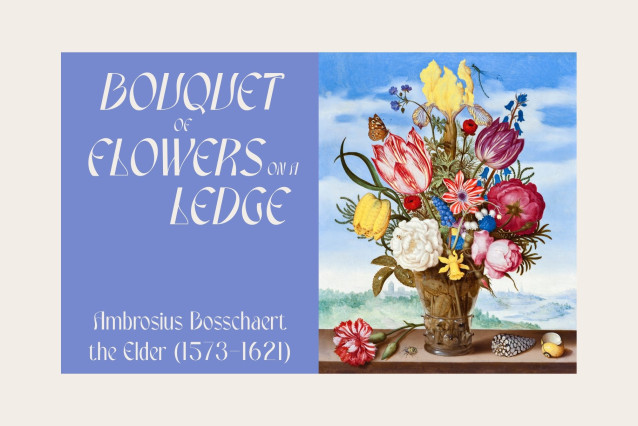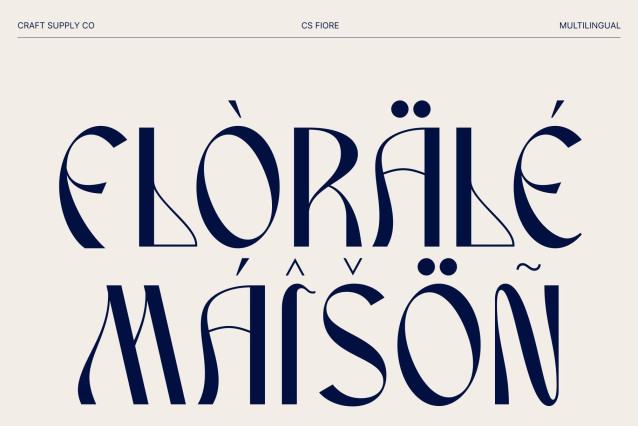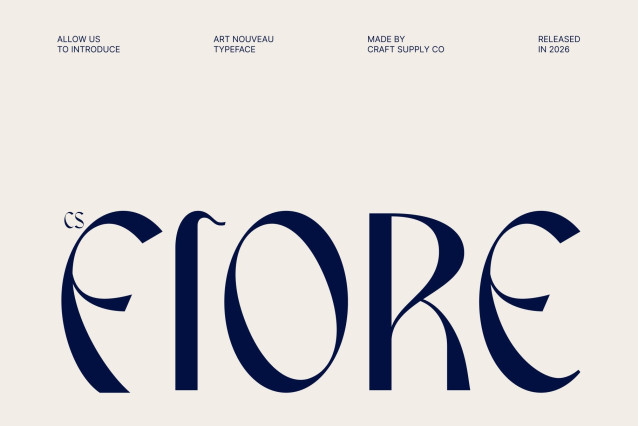
CS Fiore – Art Nouveau Font
CS Fiore – Art Nouveau Sans Serif of Organic Elegance and Modern Beauty
Art Nouveau Sans Serif with Organic Flow
This is an Art Nouveau-inspired sans serif font that blends organic flowing curves with contemporary structure. Its elegant letterforms are designed to feel refined, artistic, and naturally balanced, creating a harmonious typographic style that feels both classic and modern.
Contemporary Elegance with Smooth Curves
The font features smooth, organic curves combined with clean sans serif construction, resulting in a fresh and sophisticated appearance. These flowing lines give a graceful rhythm, allowing each word to feel fluid, stylish, and visually captivating.
Refined Artistic Expression with Modern Clarity
This font balances decorative Art Nouveau inspiration with modern simplicity, creating a typeface that is expressive yet highly readable. Its elegant lines and subtle artistic details bring sophistication and beauty to every composition without overwhelming the design.
Perfect for Branding, Posters, and Editorial Design
Ideal for branding, posters, and editorial layouts, this font delivers a refined and artistic presence across all creative applications. Whether used for luxury branding, magazine spreads, or fashion visuals, it adds elegance, sophistication, and modern beauty to every project.